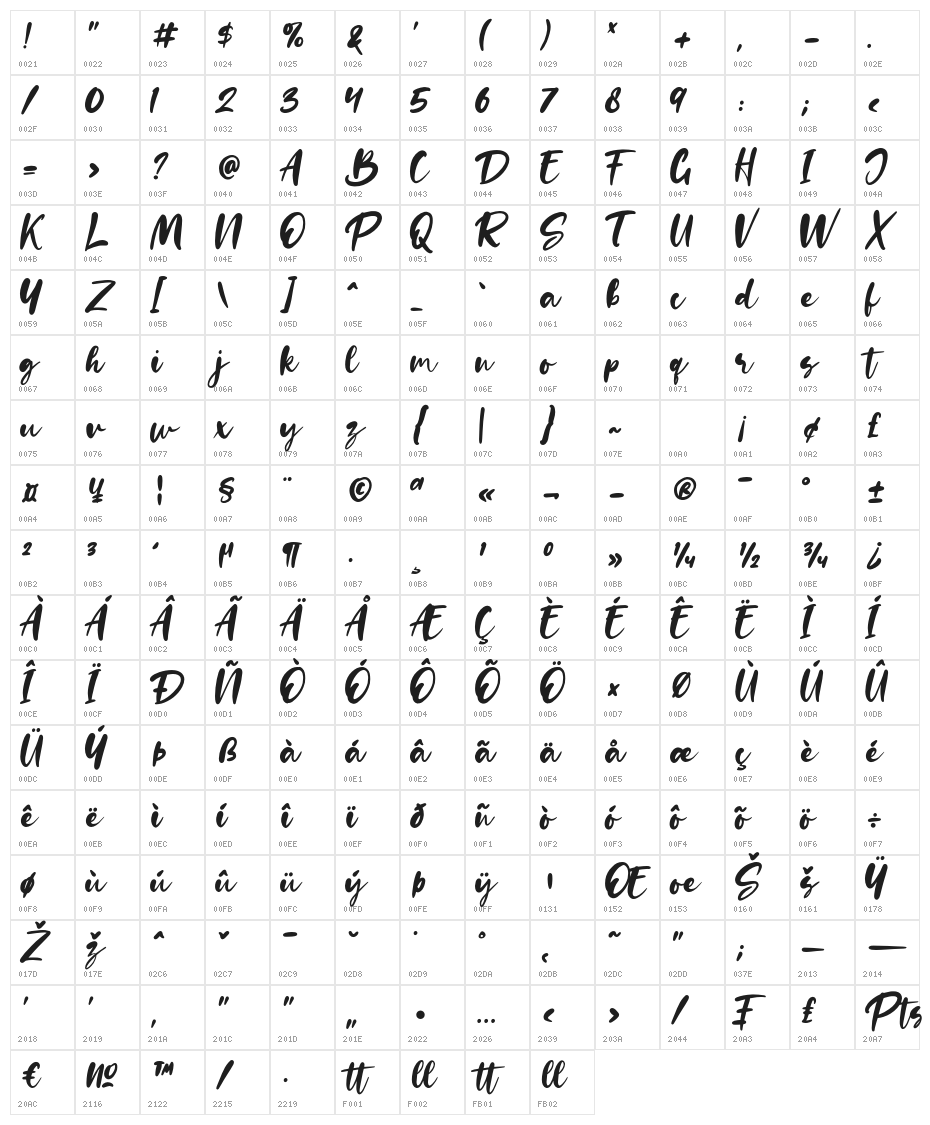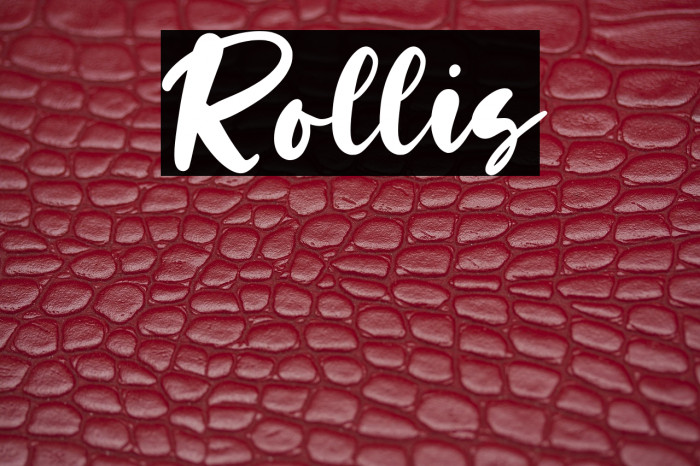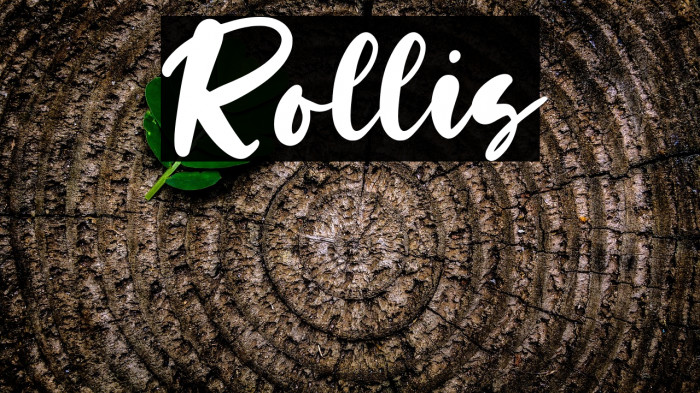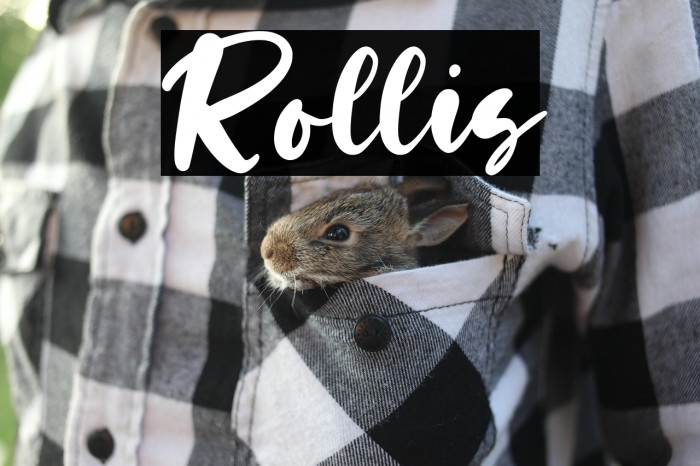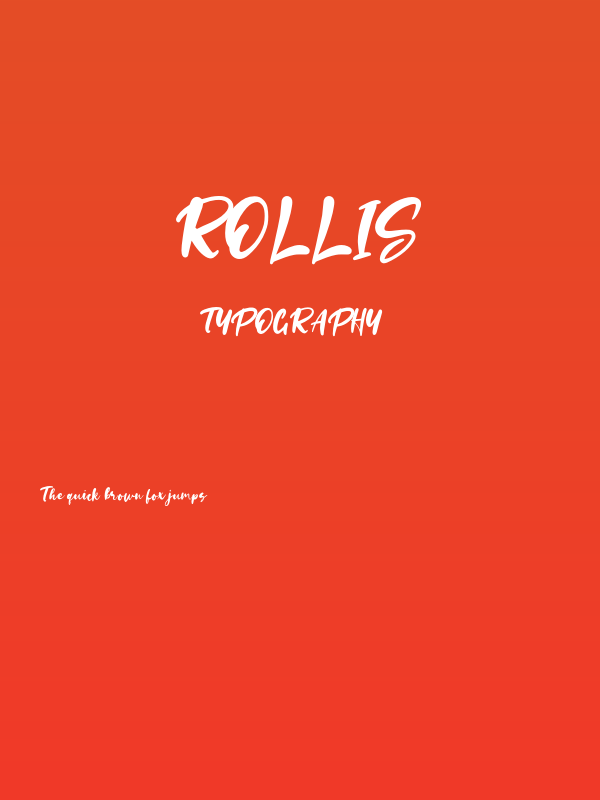
Rollis Font
Rollis Description
This font features a bold and expressive handwritten style, characterized by its fluid and dynamic strokes. The uppercase letters are bold and slightly slanted, giving a sense of movement and energy. The lowercase letters maintain a consistent flow, with smooth curves and loops that enhance its handwritten appeal. Numbers are equally bold, maintaining the same energetic style as the letters. The special characters are crafted with the same attention to detail, ensuring a cohesive look across all elements. This font is ideal for projects that require a personal touch, such as invitations, greeting cards, or branding materials that aim to convey warmth and creativity.
| Use Case | Logos, Headlines, Creative projects |
| Proposed Projects | Ideal for invitations, greeting cards, branding materials, and creative projects. |